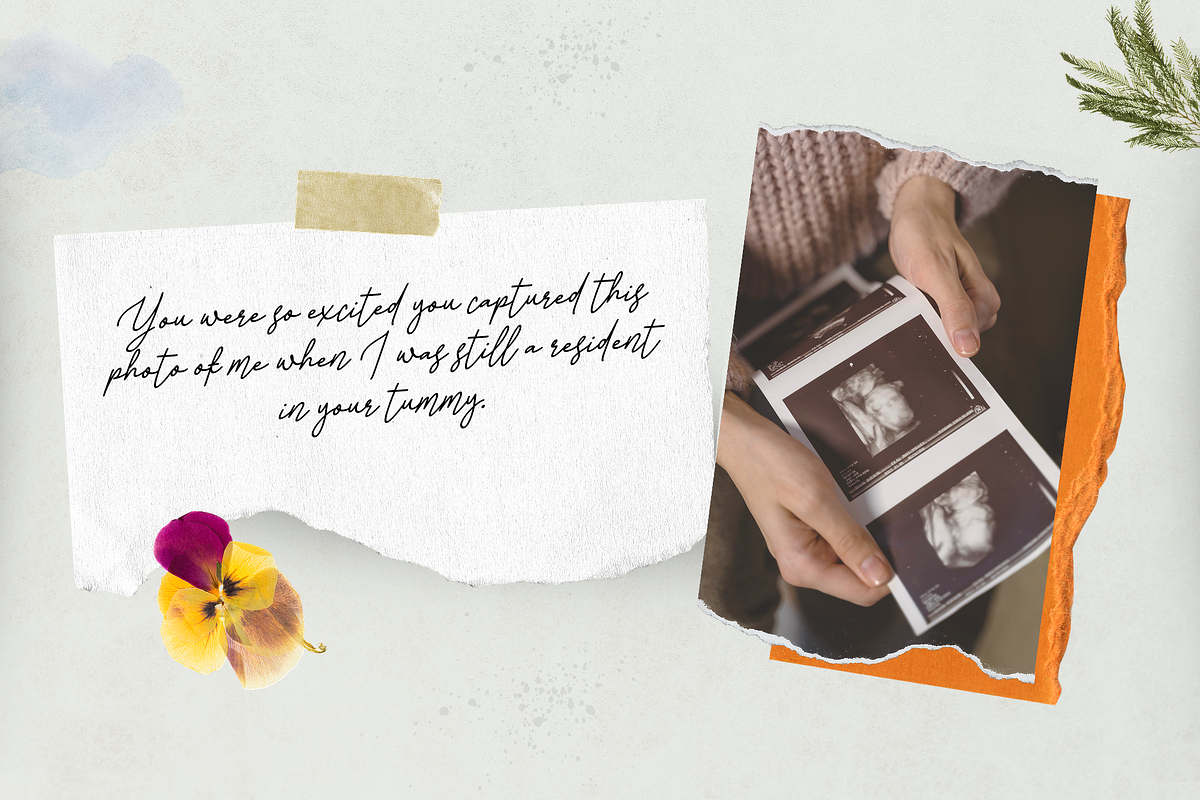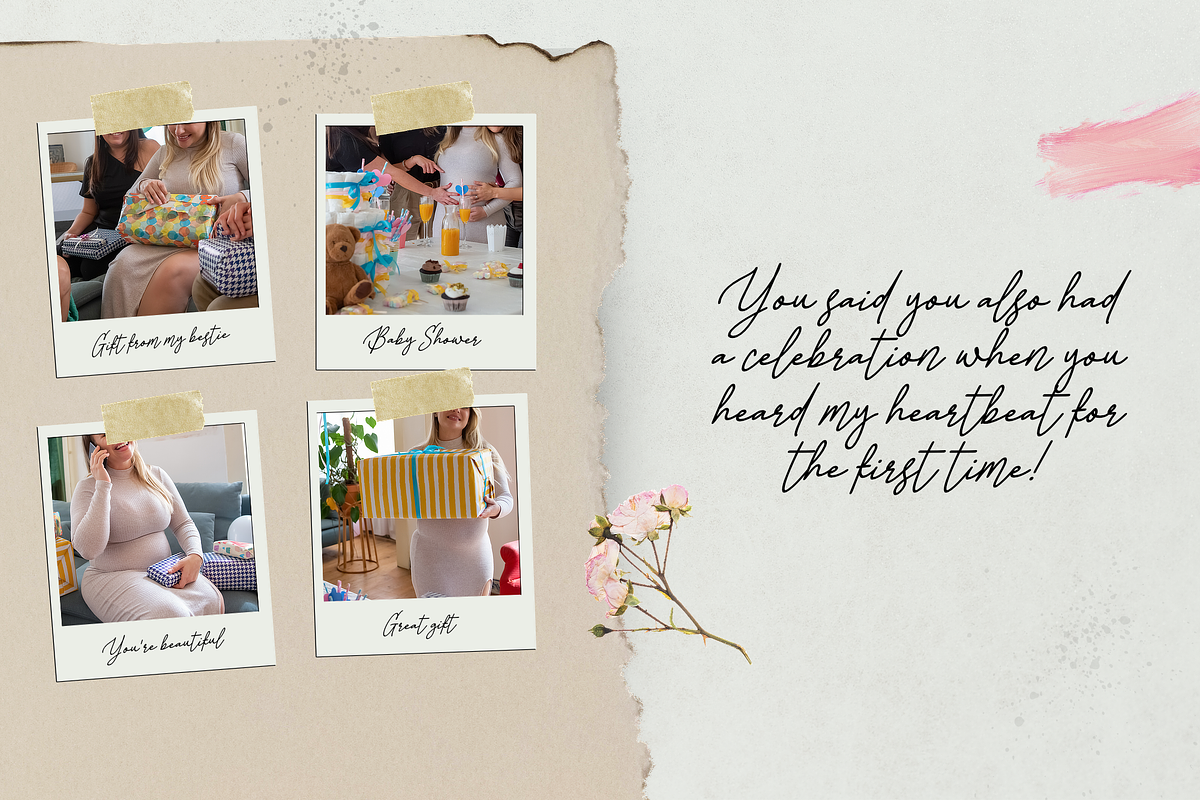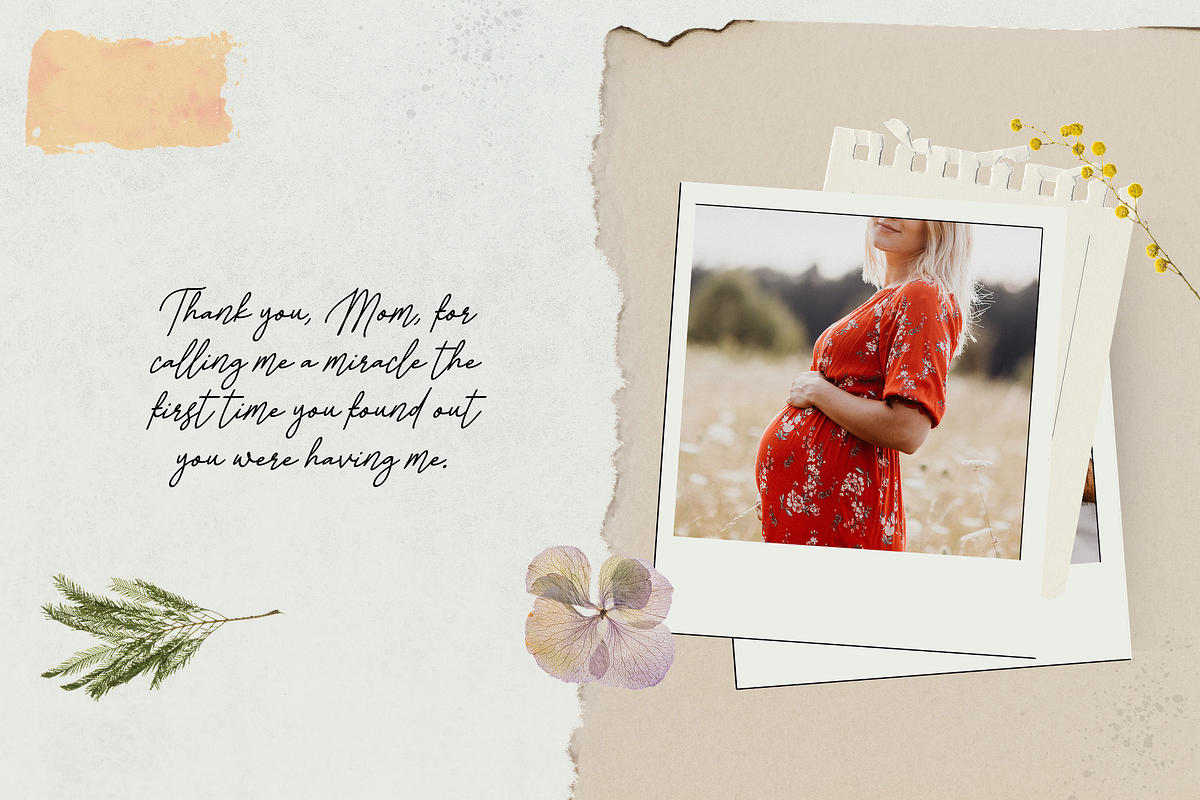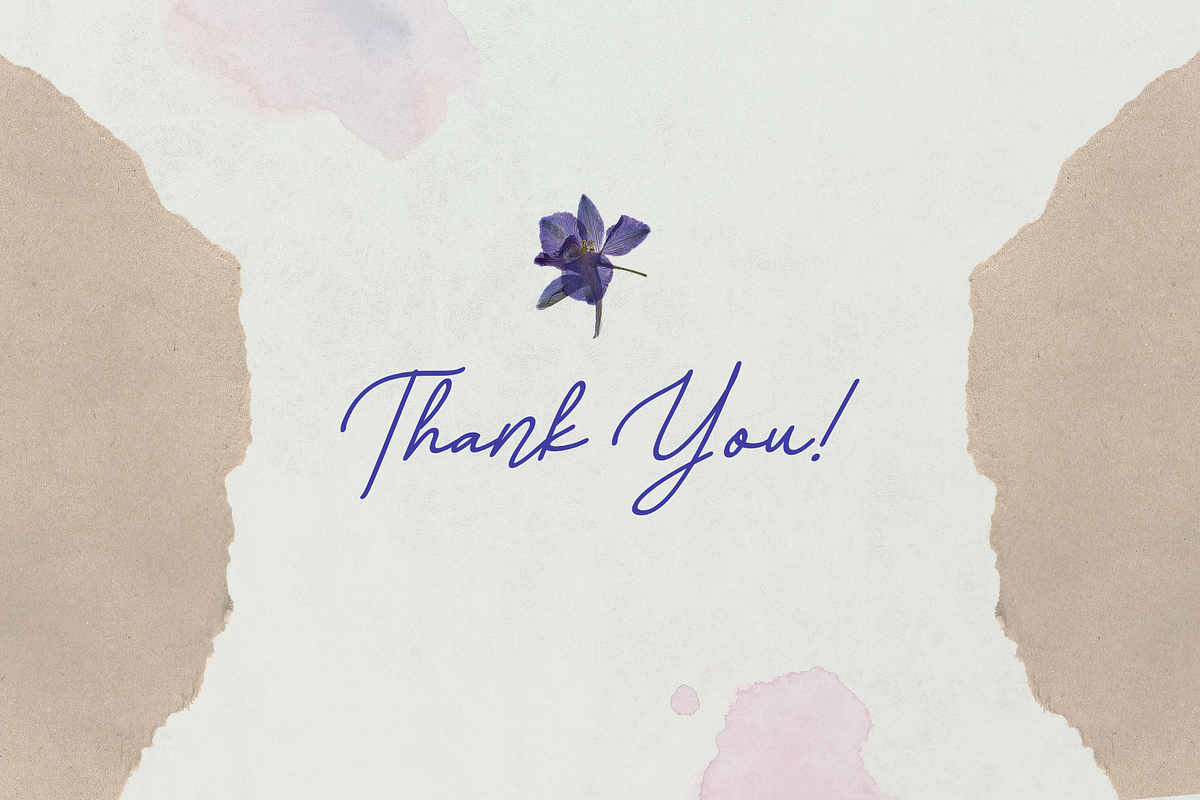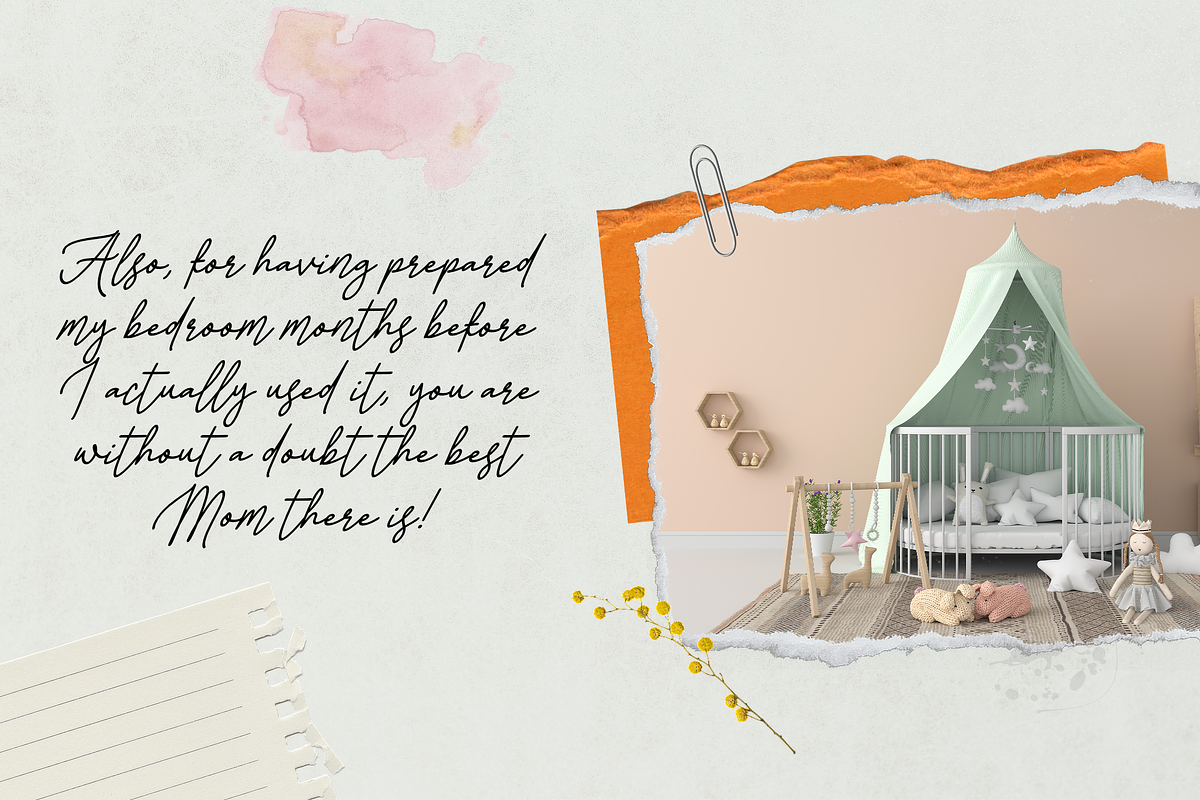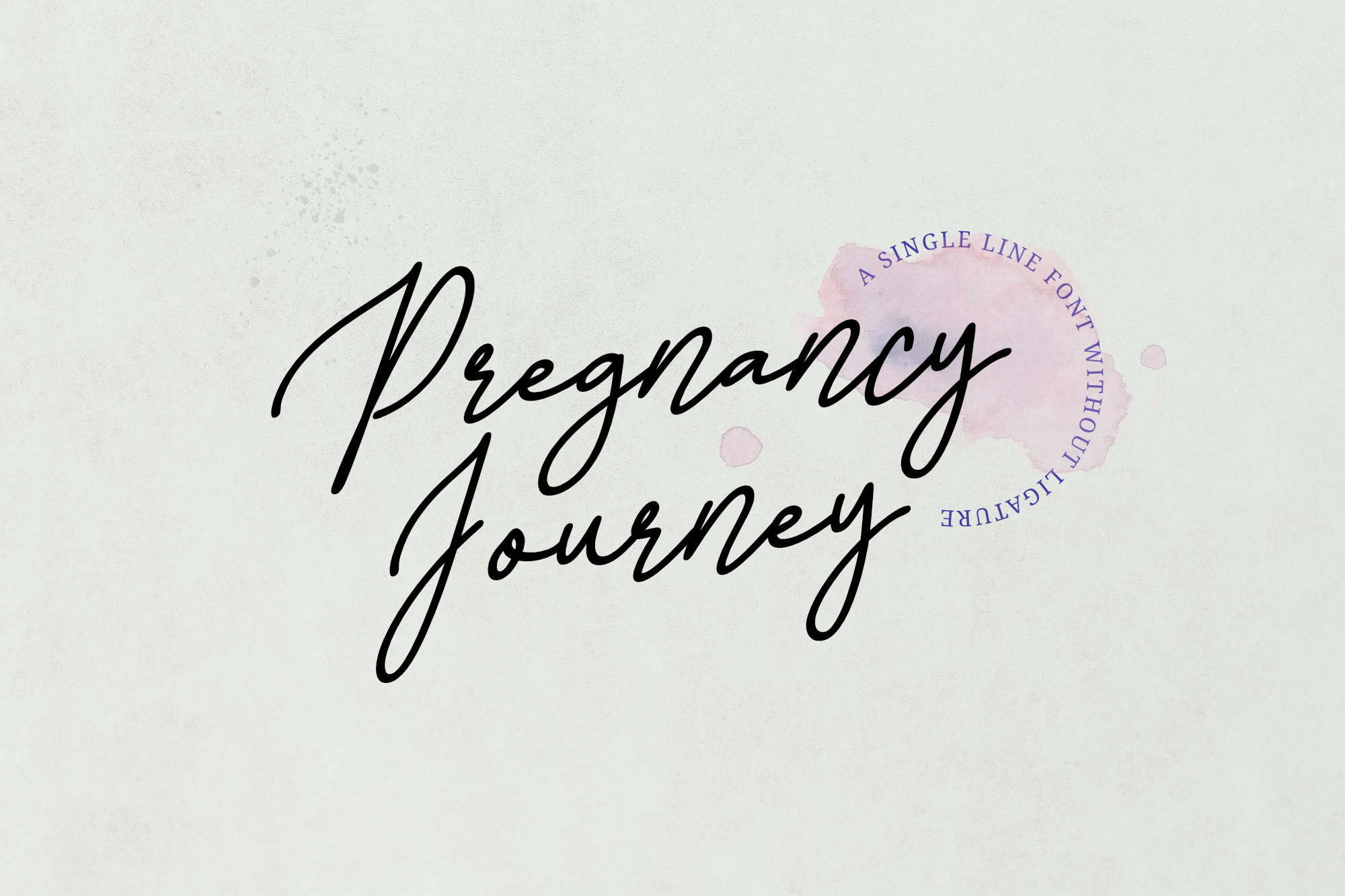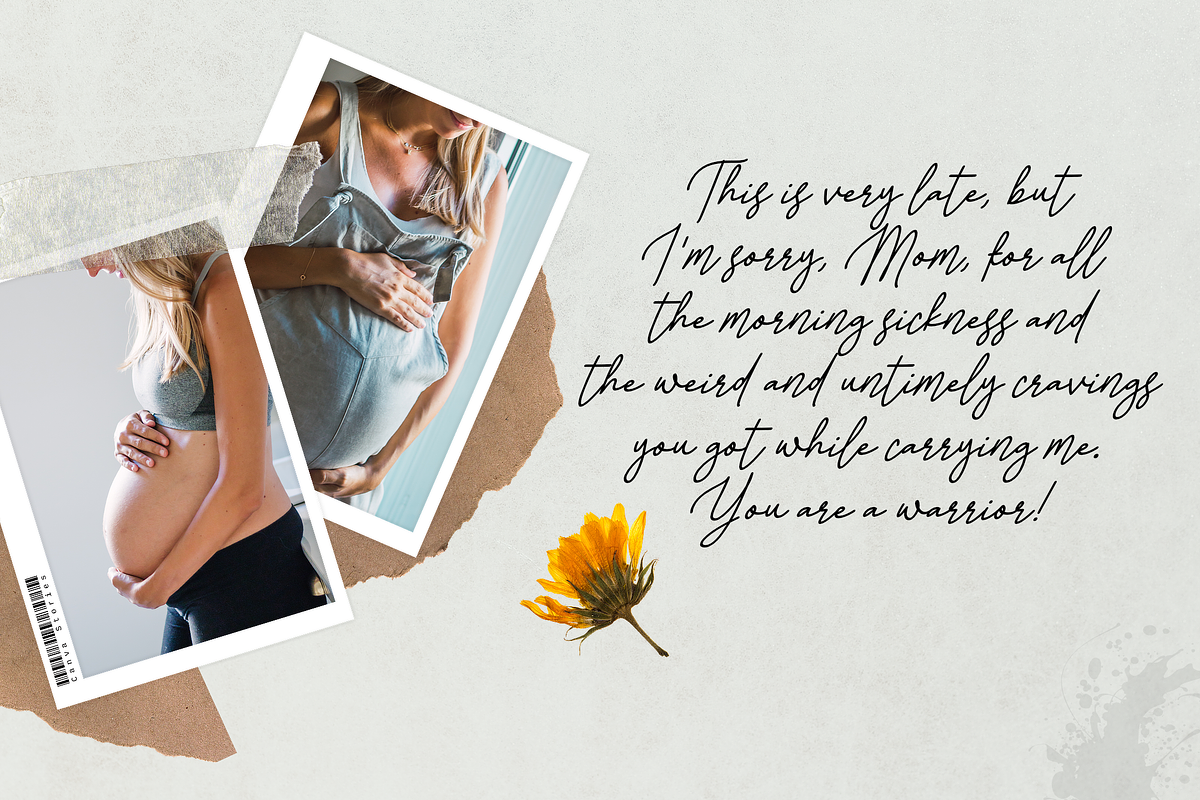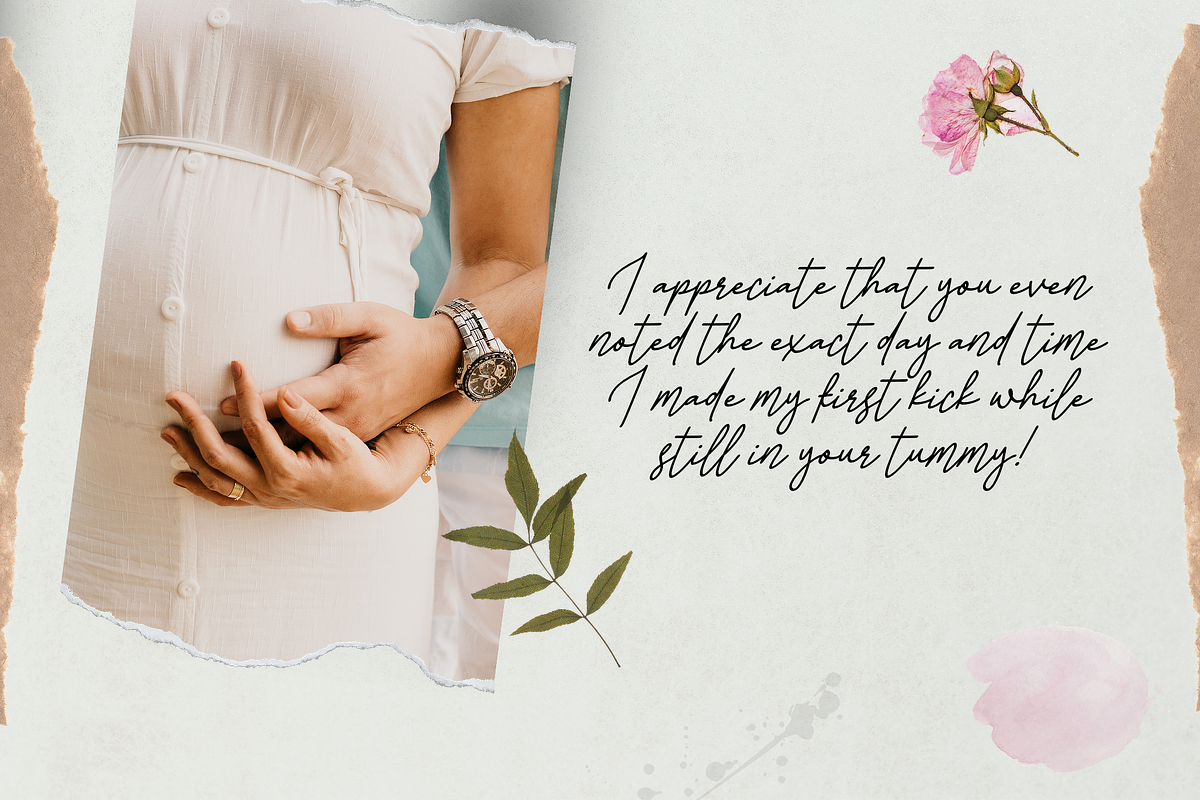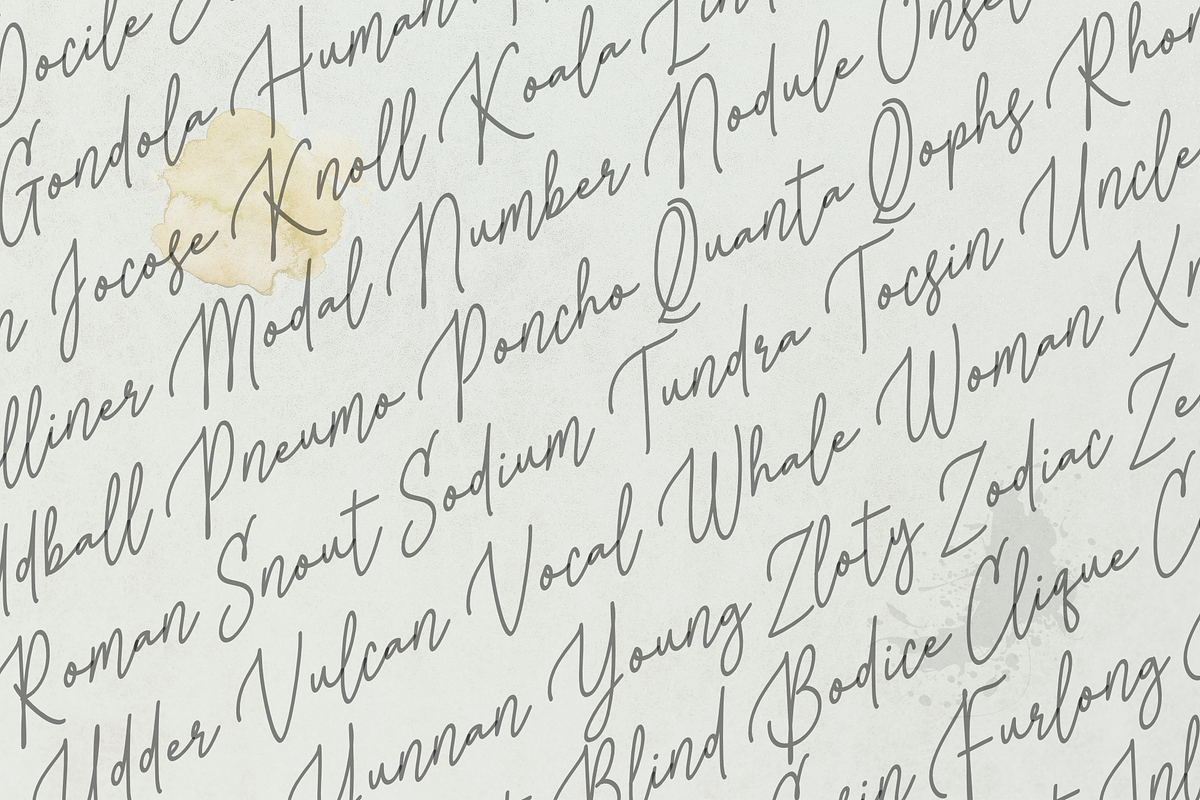
Pregnancy Journey - Monoline Font
Pregnancy Journey is a Single Line Script style without ligature– a sweet & charming script with a handwritten and script style make this font looks natural, stylish and perfect for any awesome projects that need handwriting taste. This font would perfect for Baby Shower Invitation, Wedding Invitation, Quotes, Journal, Planner, Packaging, or anything else.